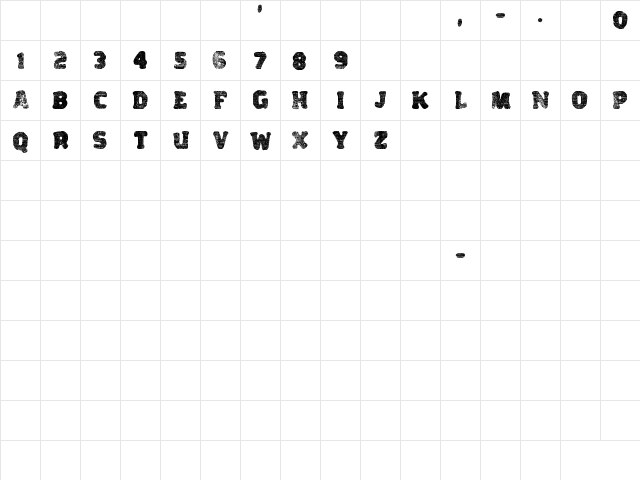
Variations Regular
| Designer | Imagex |
Design Context for Variations Typeface
Variations is a composed and adaptable typeface that performs quietly and consistently across a wide range of design contexts.